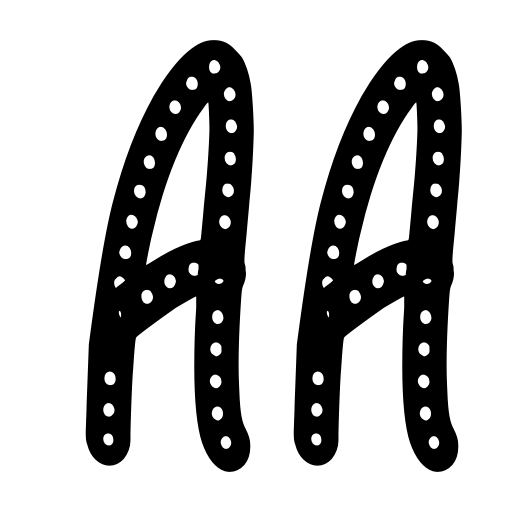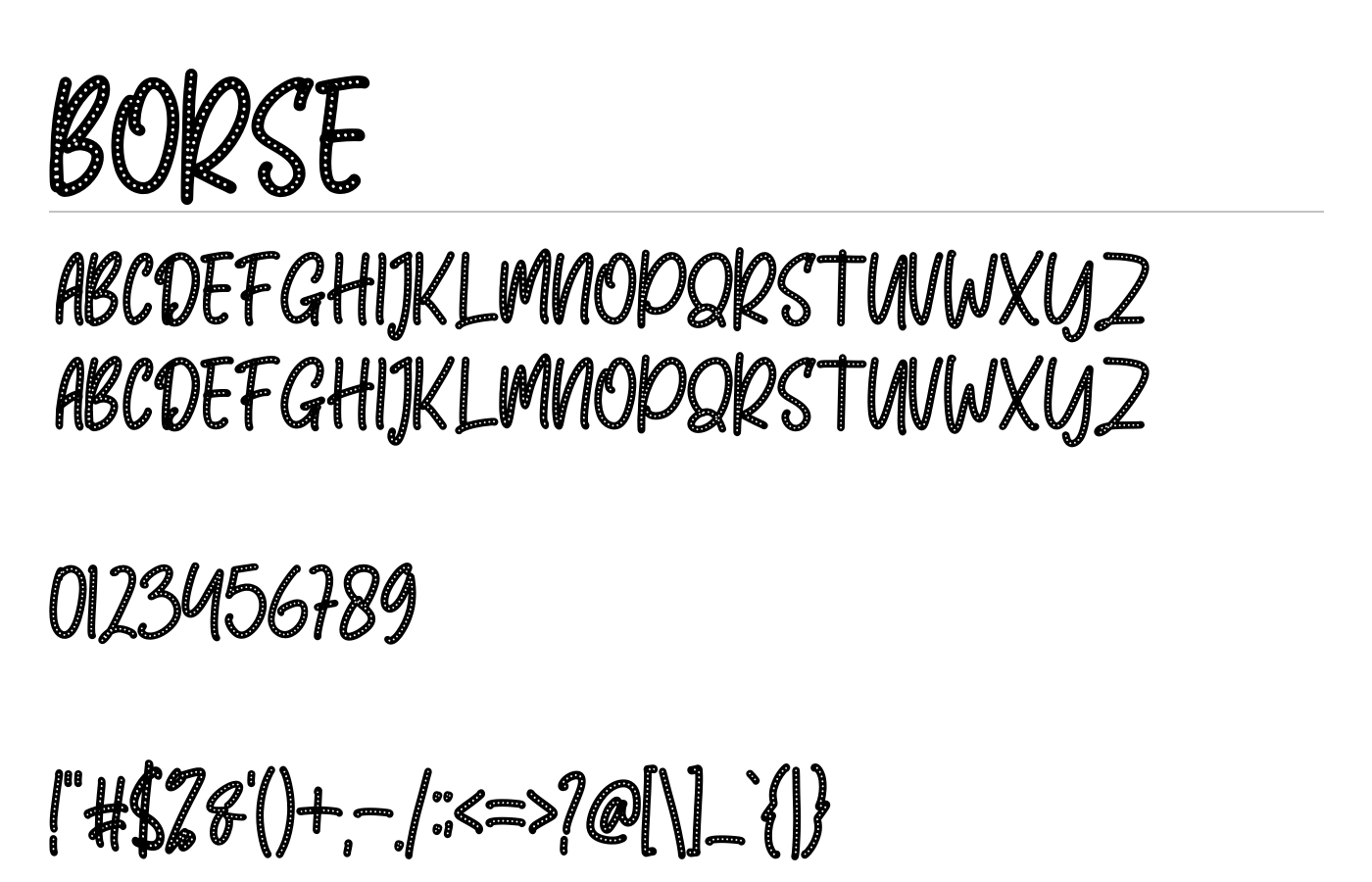
BORSE is a playful, handwritten-style sans serif font characterized by its tall, narrow letterforms dotted with a whimsical pattern that adds a lively texture. Its light weight and casual, slightly irregular strokes create a friendly and approachable vibe, making it perfect for creative, informal designs like children's books, party invitations, or quirky branding. This font brings a fun, unique personality to any project where a cheerful and distinctive look is desired.
BORSE Font
About BORSE Font